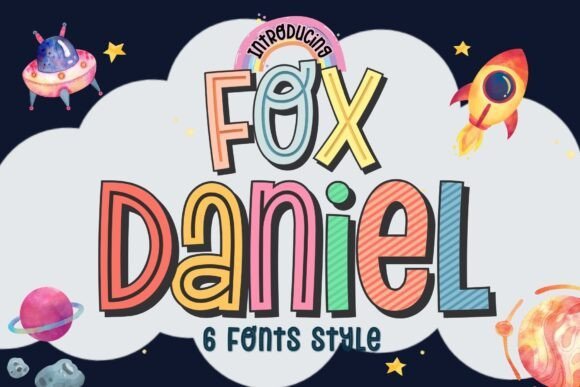
Remember that moment when you stumbled upon the perfect font, and your design just came alive? That’s exactly what happens when you discover the Fox Daniel Font – a vibrant and playful display font that’s sure to captivate your audience. Whether you’re working on a publication, menu, or logo, this 6-font style is the perfect addition to your design arsenal.
With its cool, cute, and expressive design, the Fox Daniel Font adds an energetic touch to your designs, making it stand out from the crowd. As a designer, you know how valuable it is to have a font that’s both unique and versatile. That’s why Fox Daniel Font is a valuable asset for any creative project, from business cards to t-shirt typography. Its expressive design makes it perfect for creating attention-grabbing headlines, banners, and product labels.
Fox Daniel Font Key Features
- Font Family: Fox Daniel
- Unique Characteristics: This font features a unique blend of modern and vintage elements, with a distinctive, hand-drawn feel and a wide range of weights and styles.
Designer Review: Fox Daniel Font
Overall, I was intrigued by the Fox Daniel Font and its unique approach to typography. The font’s blend of modern and vintage elements ✨ works well in a variety of contexts, from logos to body text.
- The font’s bold and playful strokes ✨ create a distinctive look that can add personality to any design.
- Its flexibility in terms of style and application ✨ makes it a great choice for designers looking to add a touch of sophistication to their projects.
- The font’s versatility in terms of font weights and styles ✨ allows designers to experiment with different looks and feels.
However, there are some limitations to consider ⚠️. For example:
- The font may not be suitable for small text sizes due to its complex strokes and shapes ⚠️.
- The font’s unique style may not appeal to all audiences ⚠️, and some may find it too bold or overpowering.
Overall, the Fox Daniel Font is a great choice for designers looking to add a touch of personality and sophistication to their projects. While it may have some limitations, its unique style and versatility make it a great option for designers who want to stand out from the crowd.
For the best results, use Fox Daniel Font in conjunction with bold or italic text to create a striking visual effect.
Experiment with different font sizes and colors to add depth and contrast to your design.
Fox Daniel Font is ideal for use in logos, branding materials, and marketing materials where a unique and eye-catching font is required.
It’s also suitable for use in digital media, such as social media graphics and website headers.